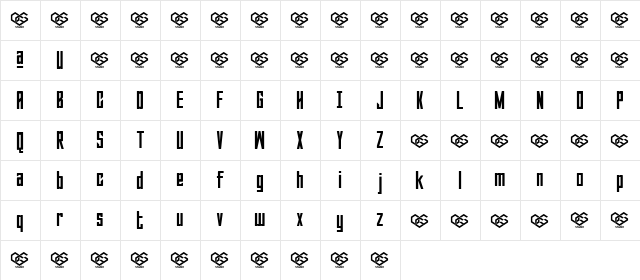
Sabuga Regular
Design Context for Sabuga Typeface
Sabuga is a composed and adaptable typeface that performs quietly and consistently across a wide range of design contexts.